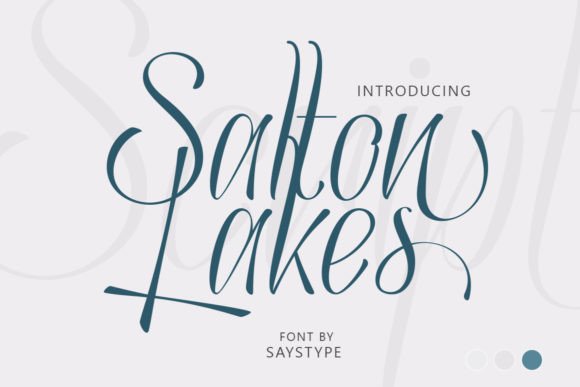
Step into the world of Salton Lakes Font, a handwritten script font that exudes simplicity, joy, and a touch of elegance. This beautiful font, crafted by the skilled artist Boy Moch Tomi, seamlessly blends casual charm with remarkable versatility.
Salton Lakes Font possesses an undeniable allure that captivates the eyes with its natural flow and unpretentious beauty. Its carefully crafted characters dance across the page, evoking a sense of warmth and familiarity. Whether you're a seasoned designer or a creative enthusiast, Salton Lakes Font is the perfect companion for your artistic endeavors.
Experience the boundless versatility of Salton Lakes Font, a font that effortlessly adapts to a myriad of design projects. Its adaptability shines, whether you're creating business cards that demand attention, elegant invitations that exude sophistication, or social media posts that spark engagement. Unleash your creativity and explore the endless possibilities that await you with Salton Lakes Font.
Let your designs blossom with the enchanting beauty of Salton Lakes Font. Its graceful strokes and playful charm breathe life into your creations, transforming them into captivating works of art. Immerse yourself in a world of creativity and let your imagination run wild as you explore the limitless potential of this remarkable font.